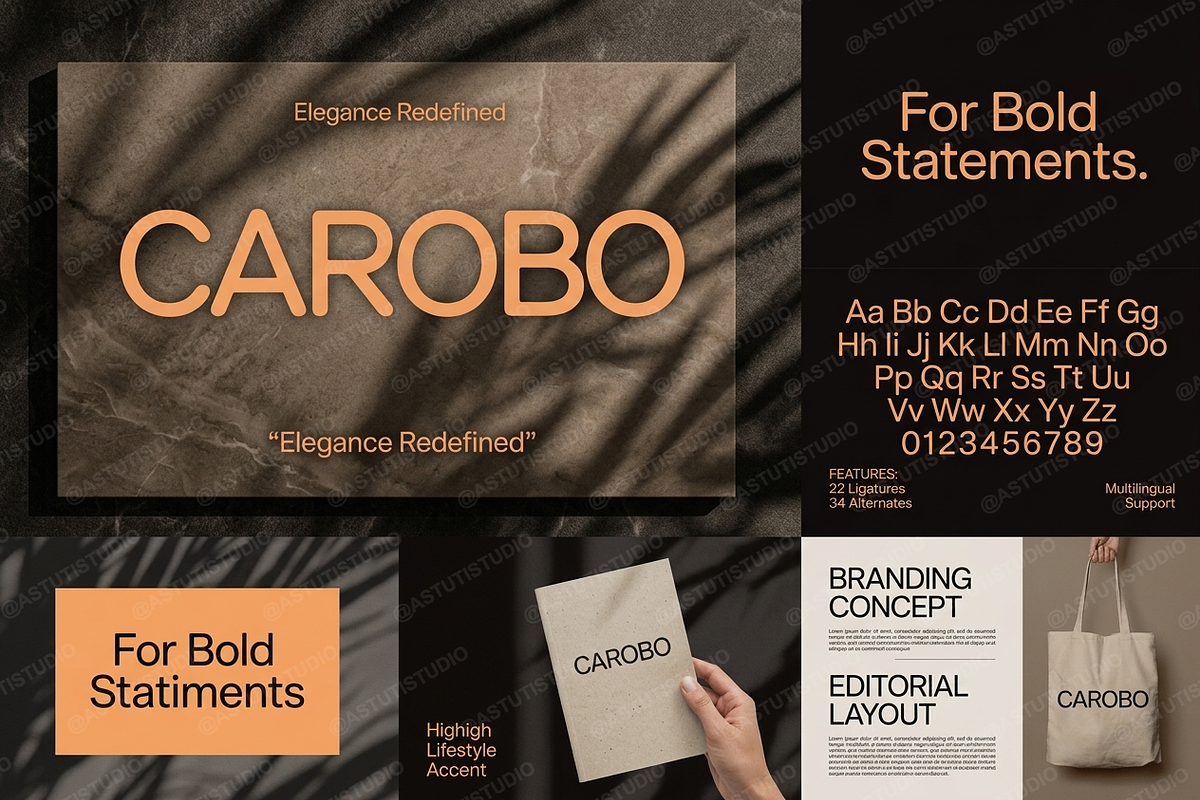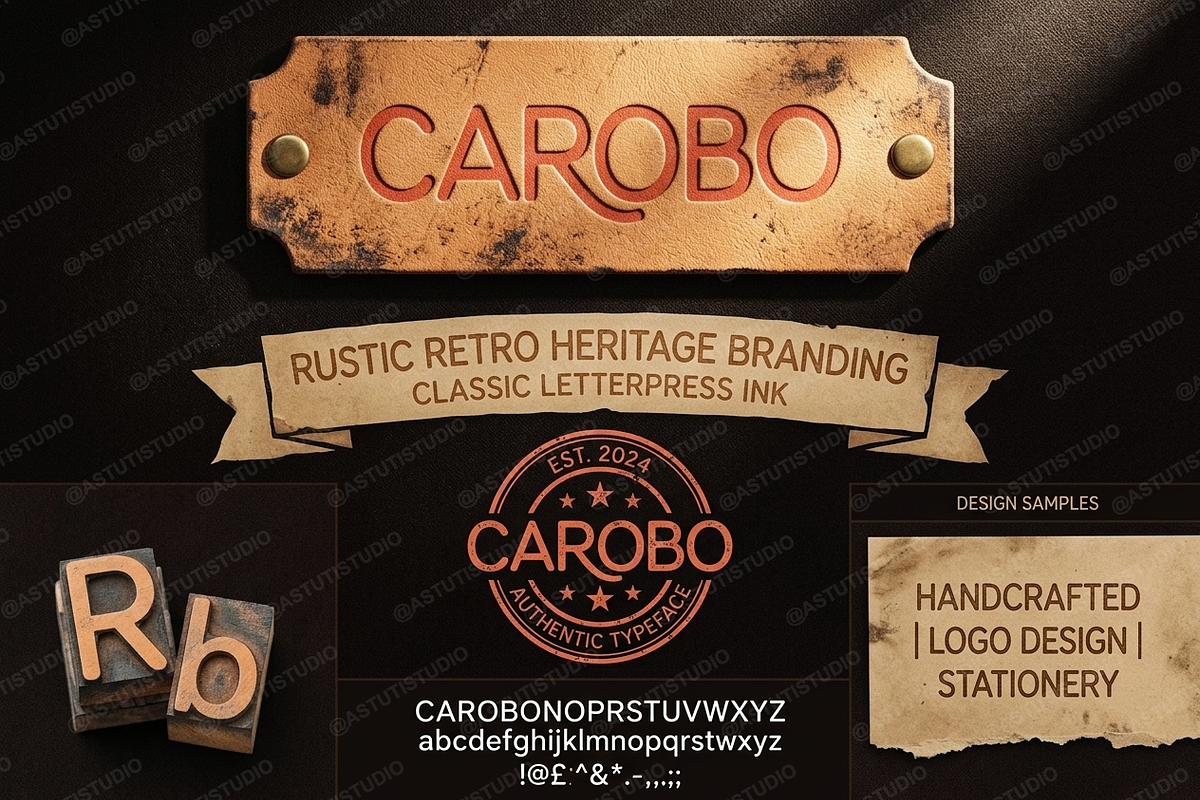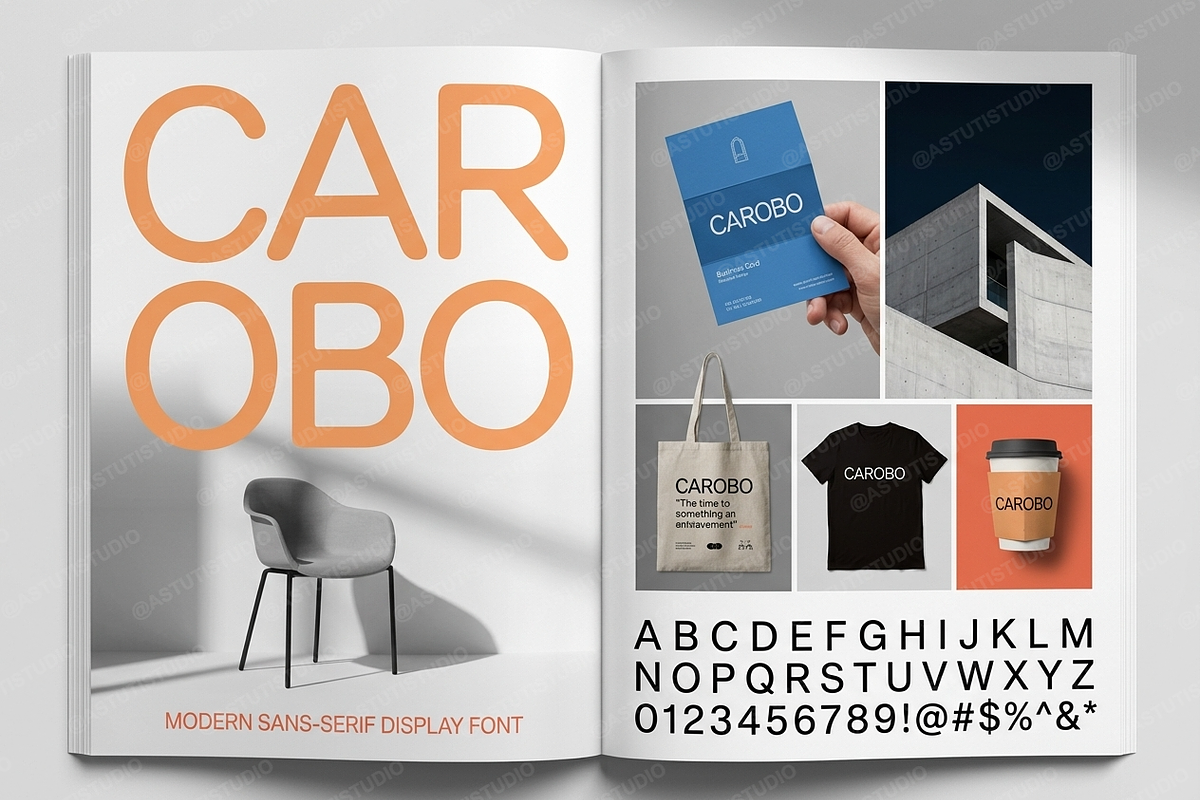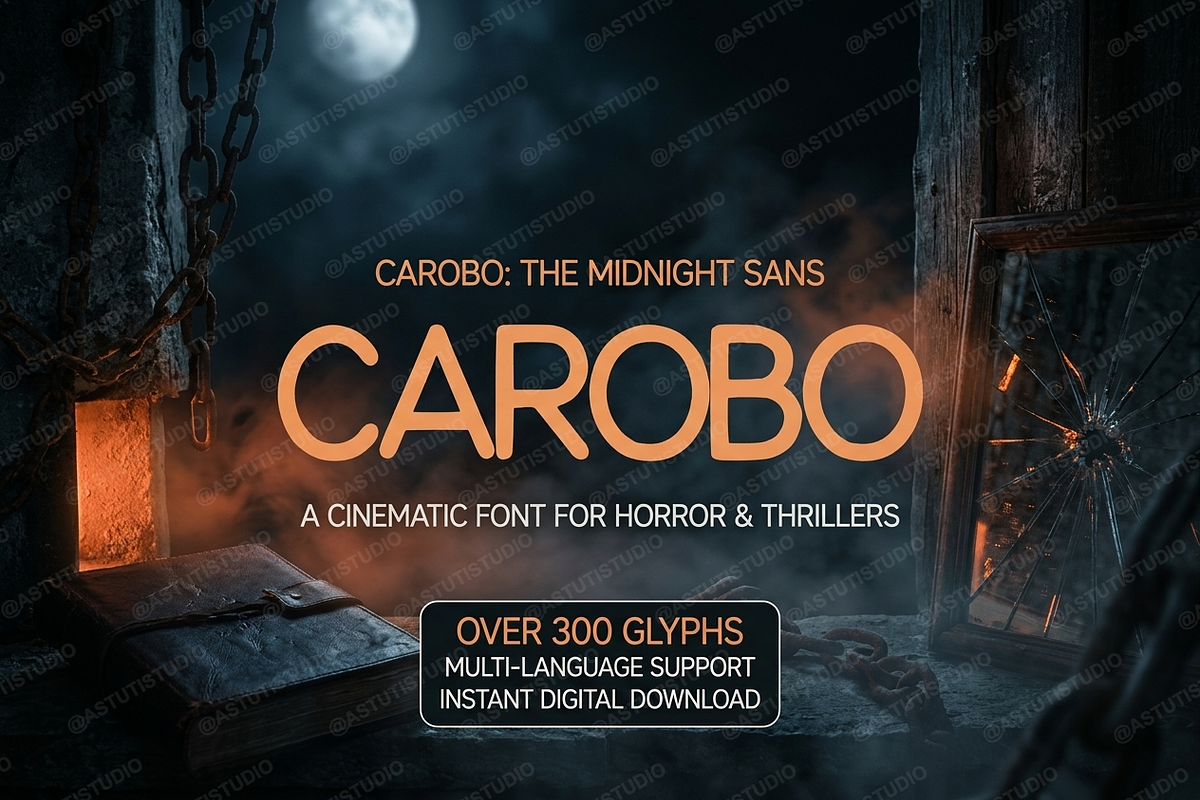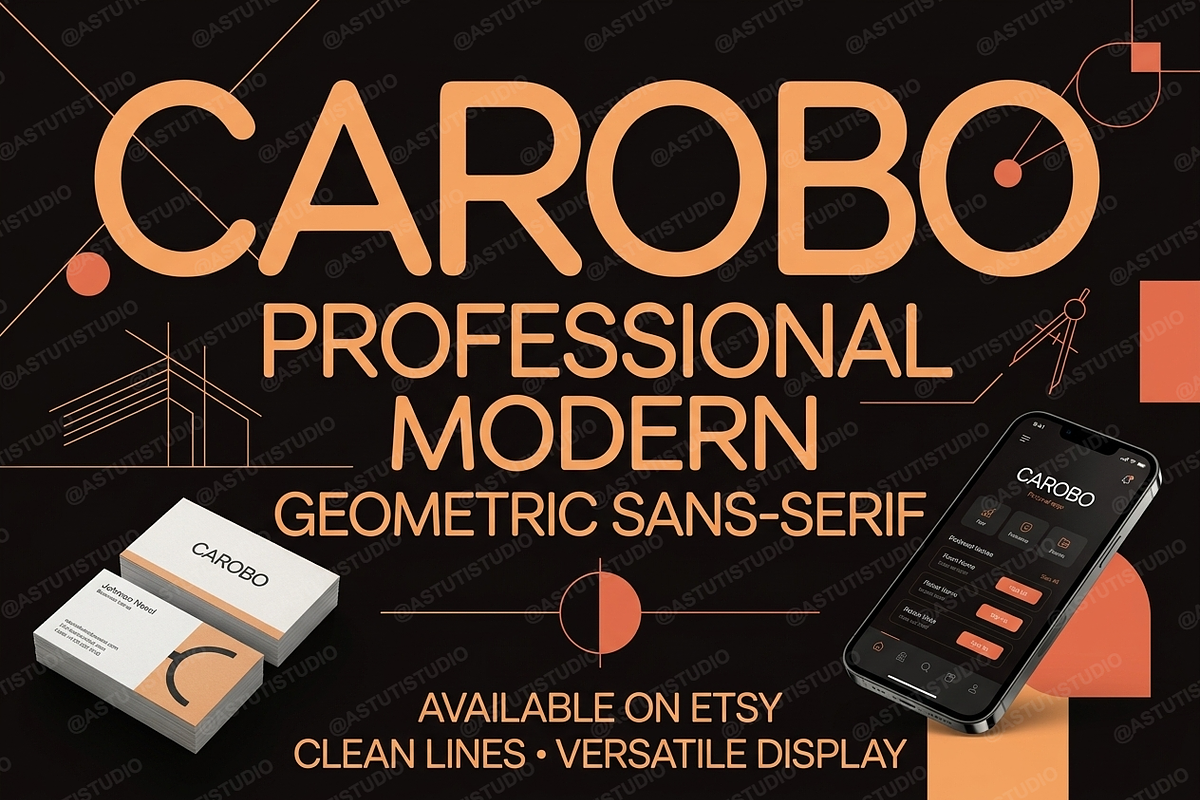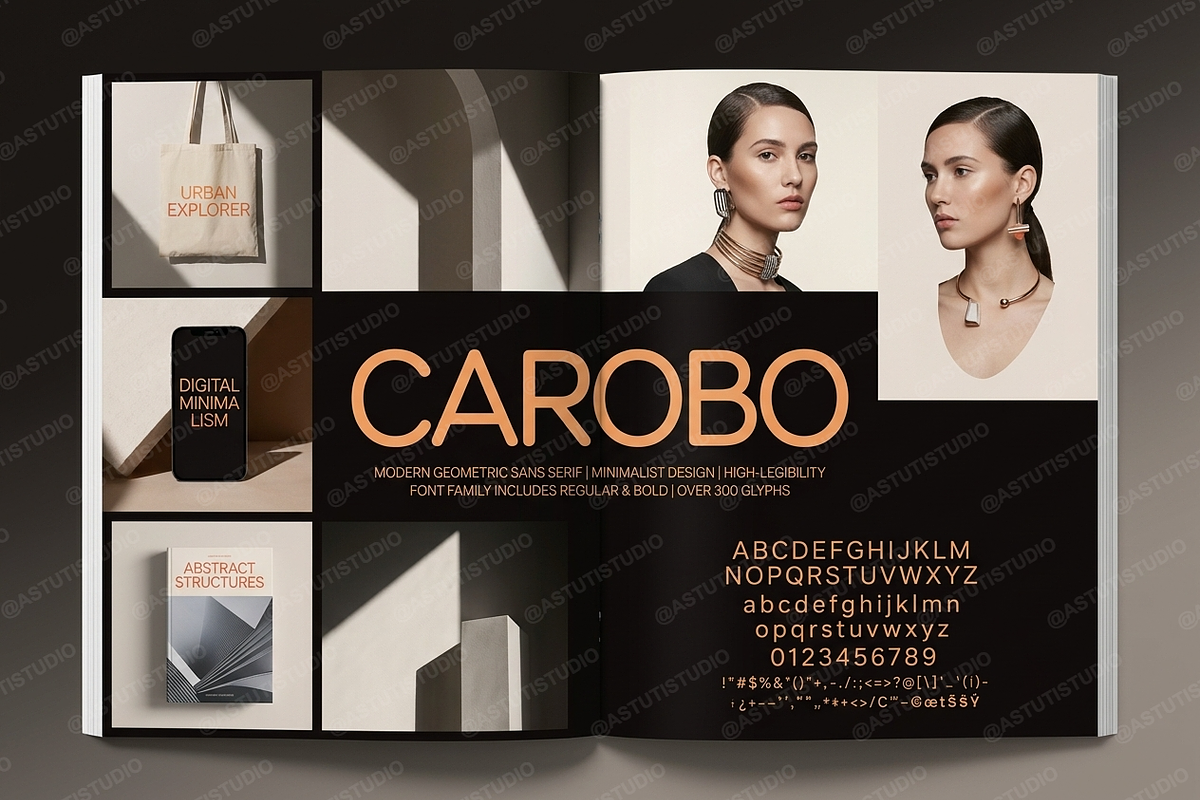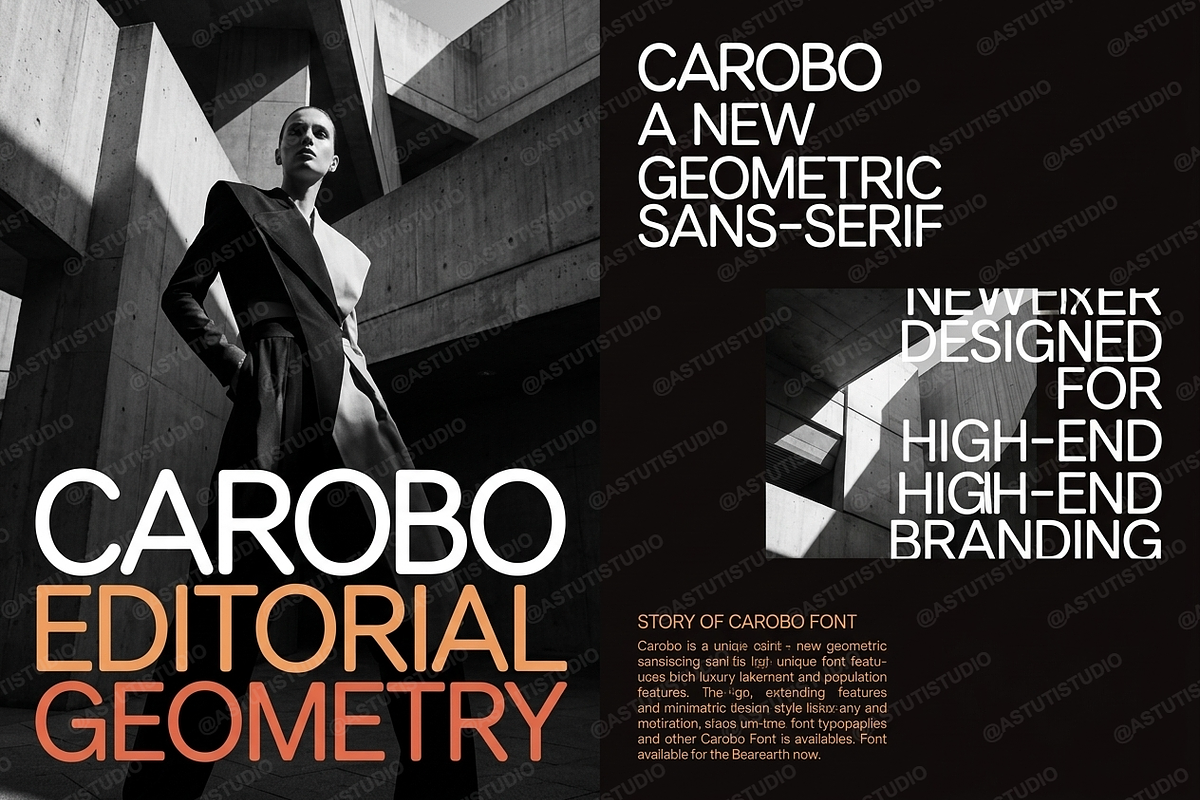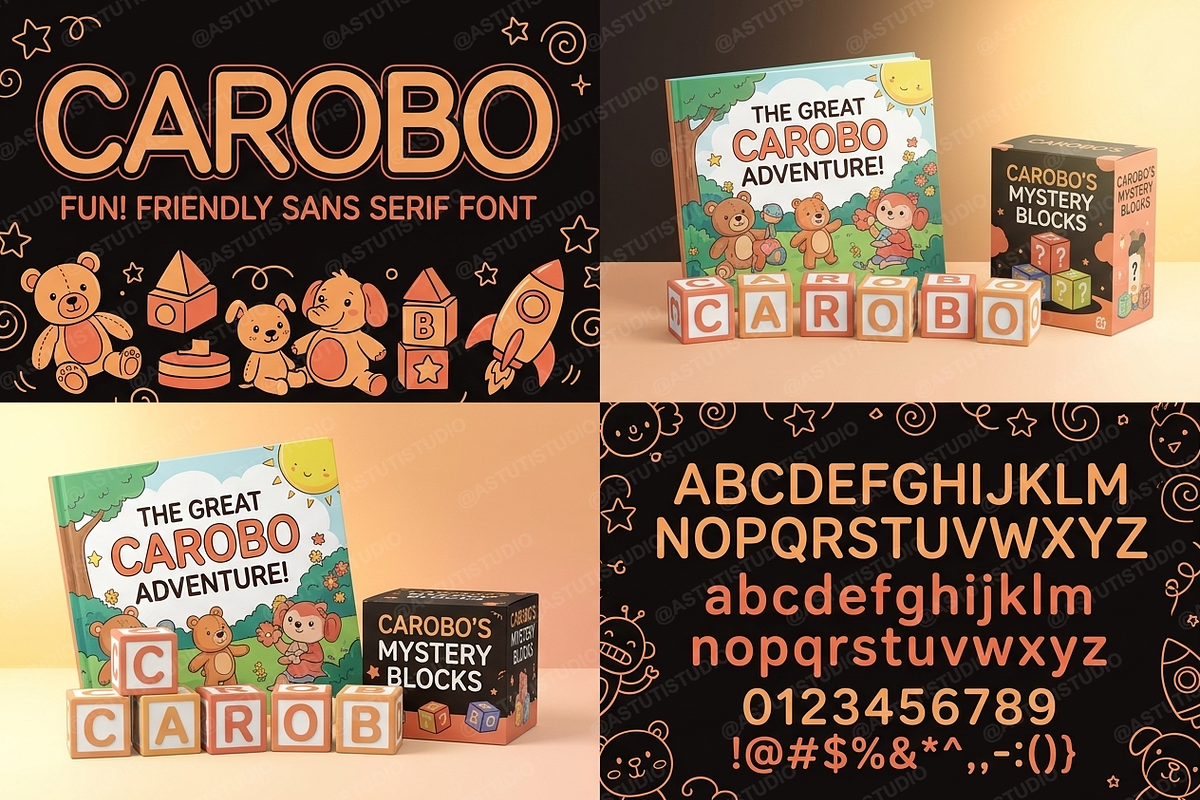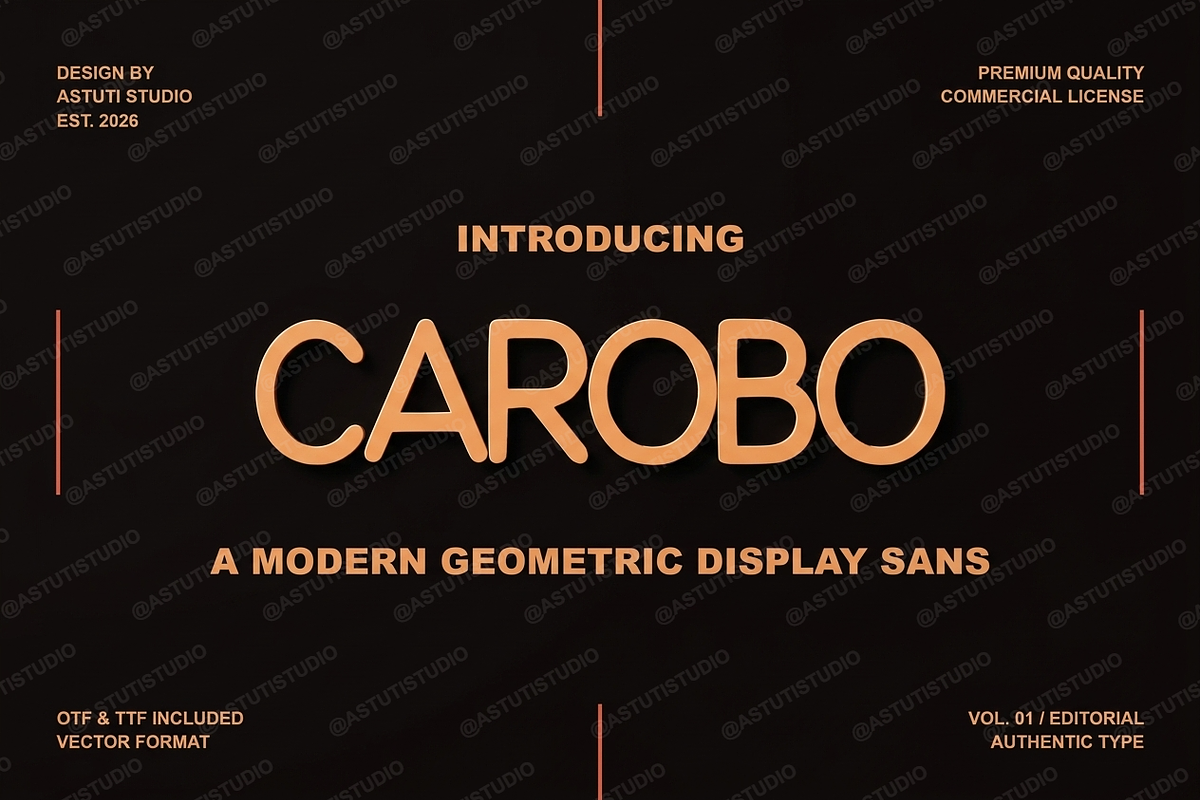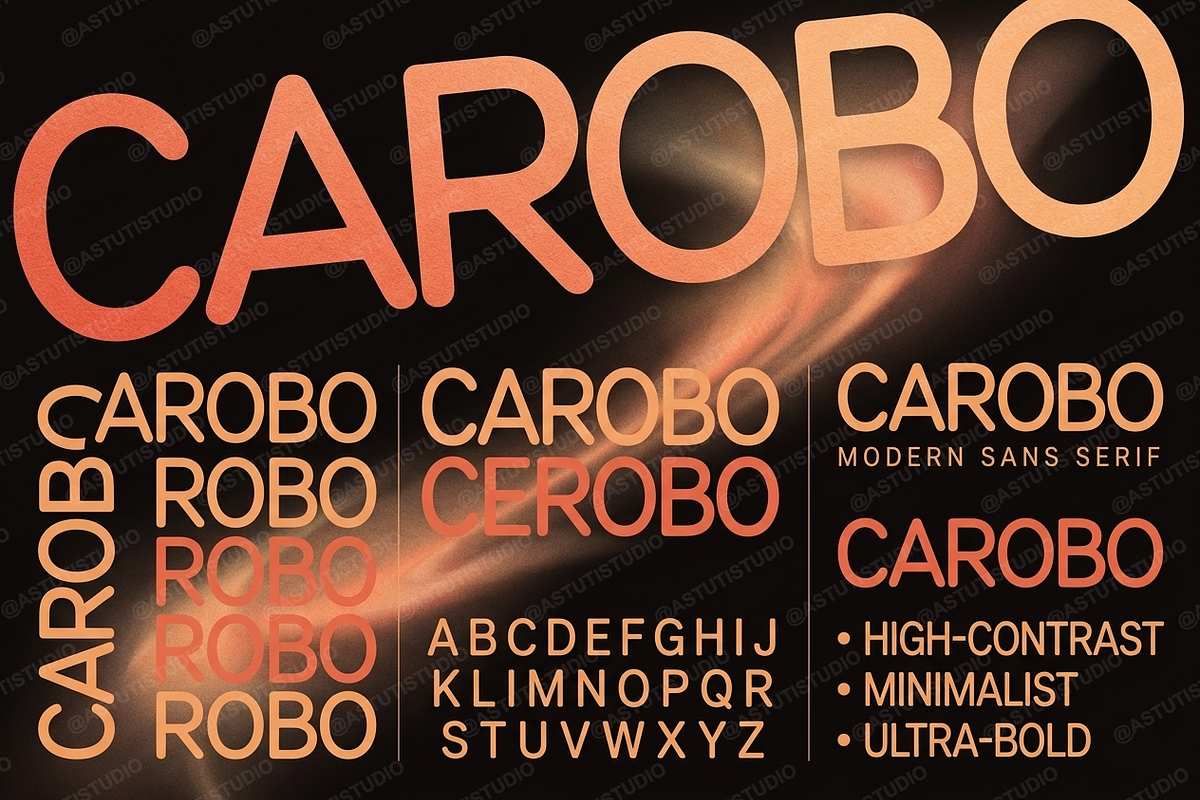
Carobo | Modern Sans Serif
INTRODUCTION
Carobo is a premium sans serif typeface crafted for high-end aesthetics and modern minimalism. Designed with precision and a focus on balanced proportions, Carobo brings an air of effortless luxury to any project. It is the ideal choice for designers seeking a font that excels in editorial layouts, sophisticated branding, and high-impact social media content.
- Clean, geometric letterforms for maximum legibility
- Elegant strokes designed for a premium studio feel
- Extensive ligature set for bespoke typography
- Full multilingual support for global reach
- Optimized kerning for professional-grade typesetting
- Full character set including numbers and punctuation
- Stylistic alternates and discretionary ligatures